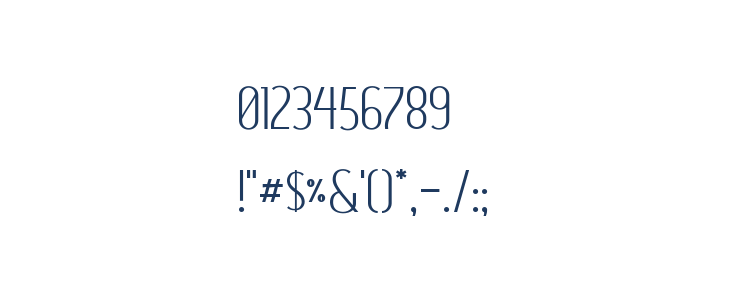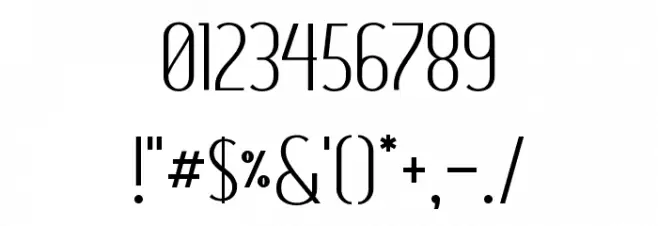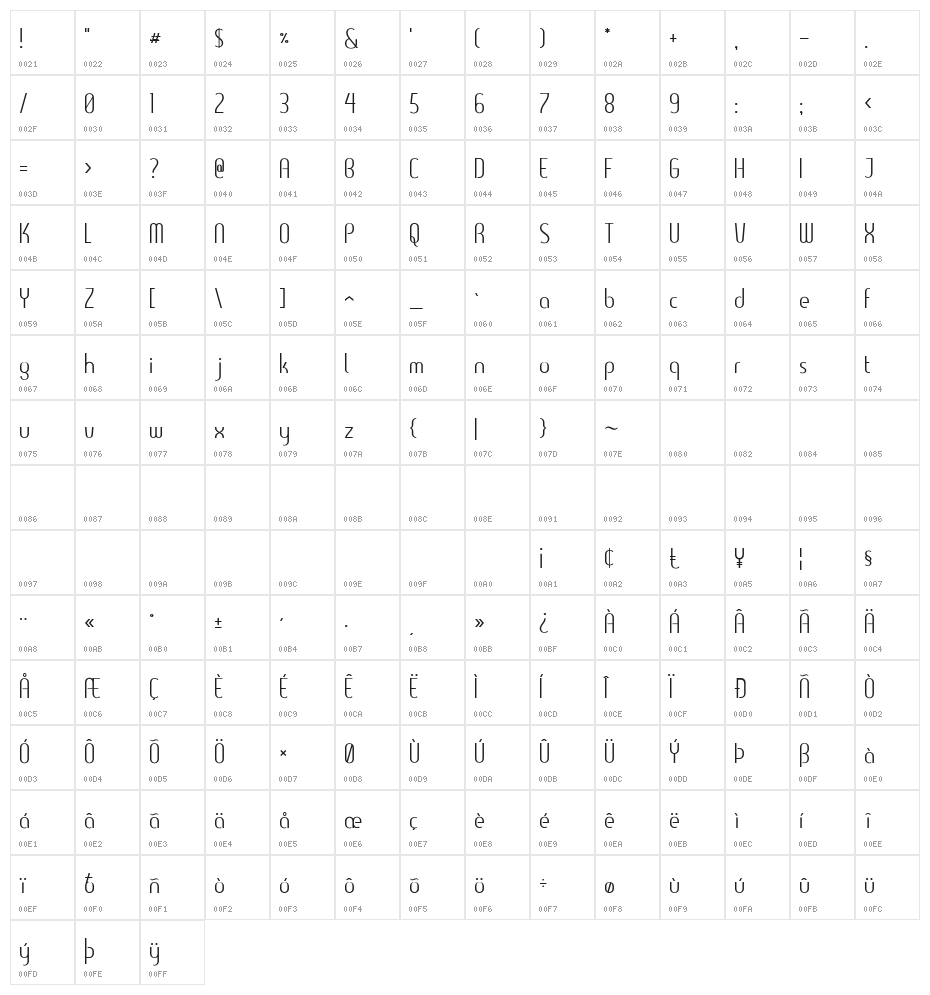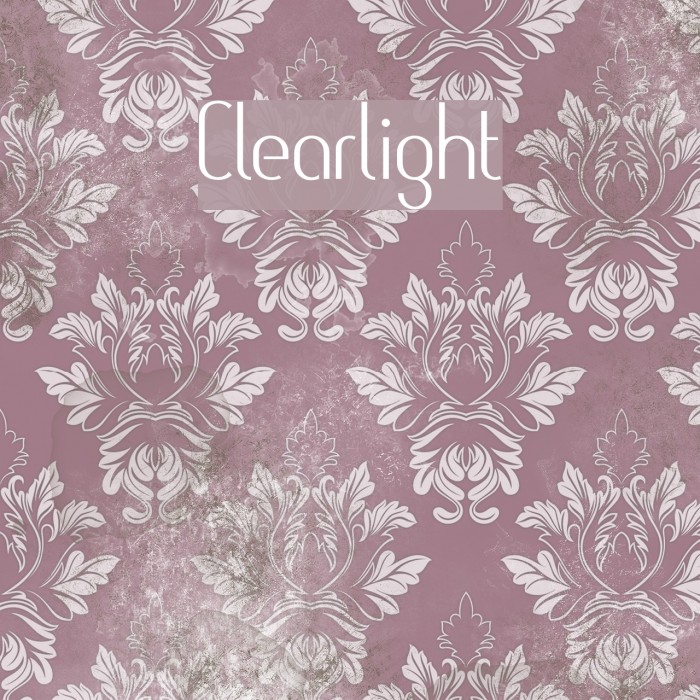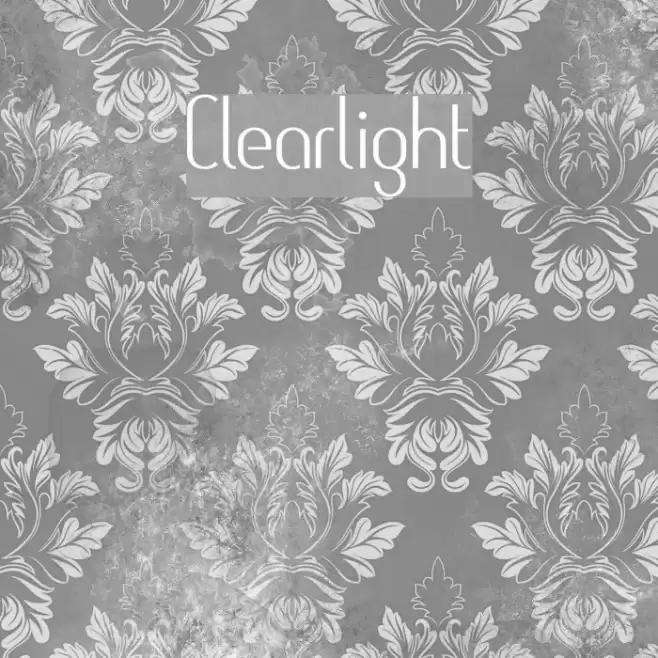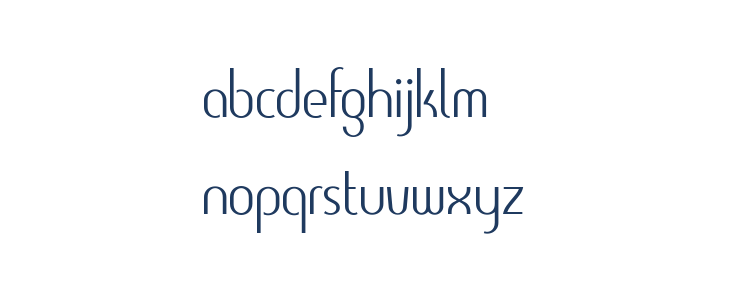
Clearlight Font
Clearlight Description
This font features a sleek, modern design with clean lines and a geometric structure. The characters are tall and narrow, giving it an elegant and sophisticated appearance. The uppercase letters maintain a consistent height, while the lowercase letters have a slightly more playful and rounded form. The numerals are clear and easy to read, making them suitable for various applications. Special characters are well-integrated, maintaining the overall aesthetic of the font. The uniformity in stroke width across all characters contributes to its contemporary look.